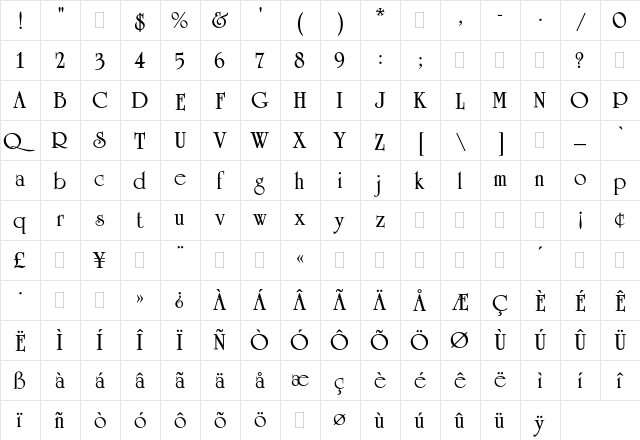
University Roman Bold Plain
Design Context for University Roman Bold Typeface
University Roman Bold is a composed and adaptable typeface that performs quietly and consistently across a wide range of design contexts. The heavy weight commands attention and anchors typographic hierarchies.